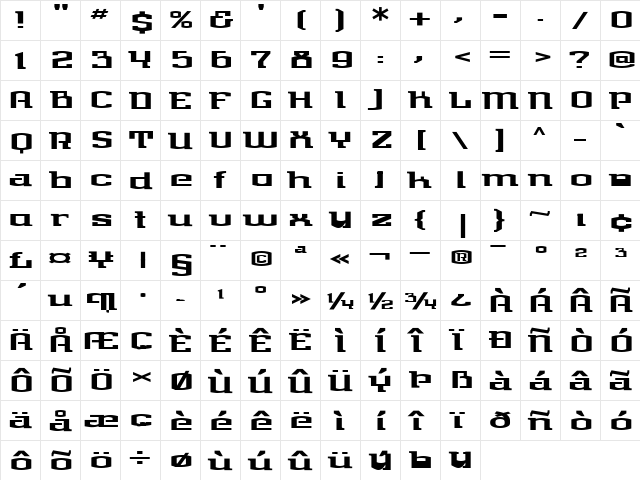
Tribe Regular
Design Context for Tribe Typeface
Tribe is a composed and adaptable typeface that performs quietly and consistently across a wide range of design contexts.
Pro Tip: Use Tribe in both headline and body roles to test its range before committing to a single application.